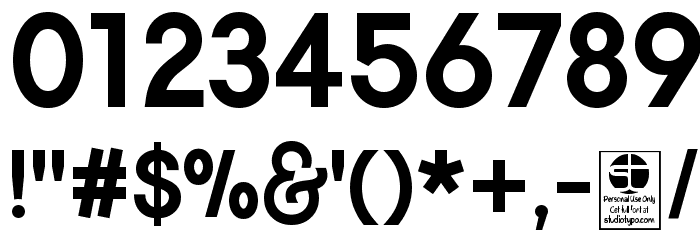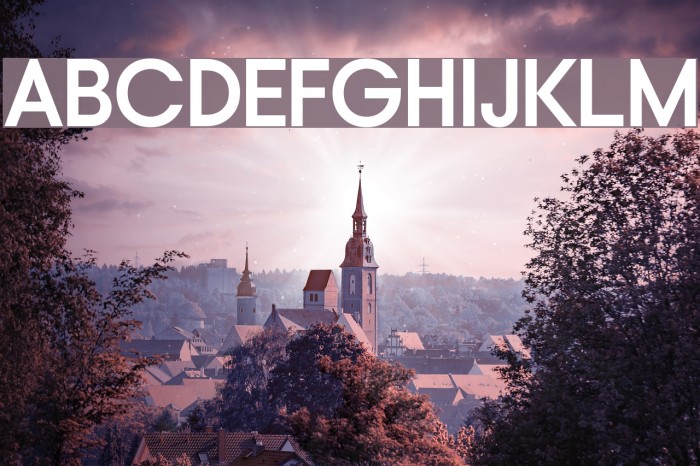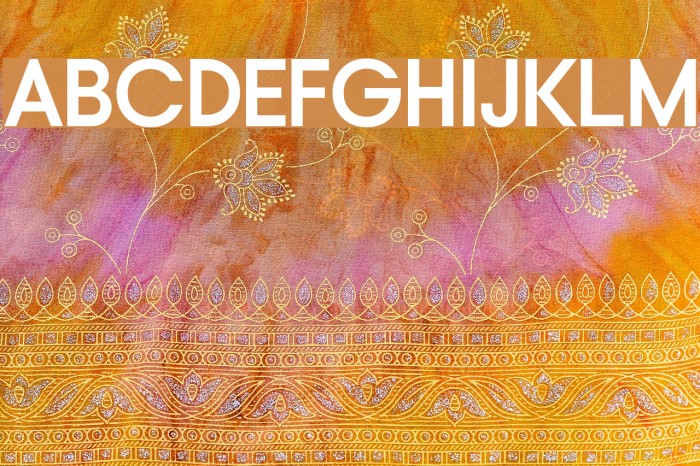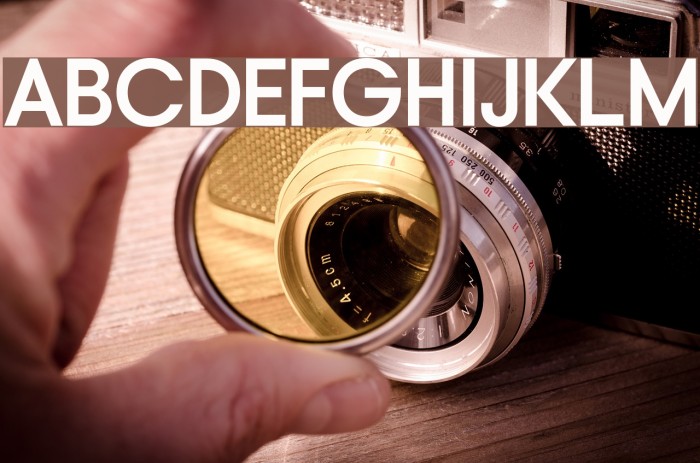
Typo Gotika Demo Bold Font
This font exhibits a bold and modern sans-serif style with clean, geometric lines and uniform stroke widths. The characters are well-proportioned, offering a strong visual impact suitable for various design applications. The uppercase letters are slightly taller than the lowercase, maintaining a consistent width that enhances readability. The numerals are clear and distinct, matching the overall boldness of the alphabet. Special characters are designed with the same attention to detail, ensuring a cohesive look across all glyphs.
A bold, modern sans-serif font with clean, geometric lines.
- Proposed Projects: Ideal for branding, advertising, headlines, and digital media where a strong, modern presence is desired.
- Use Case: Headlines, Logos, Branding